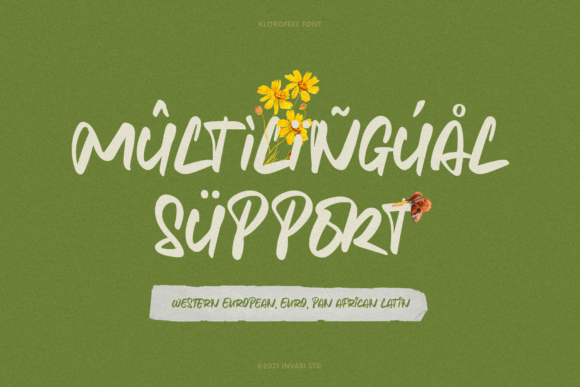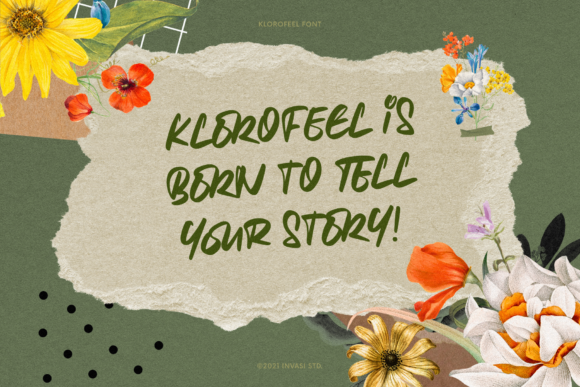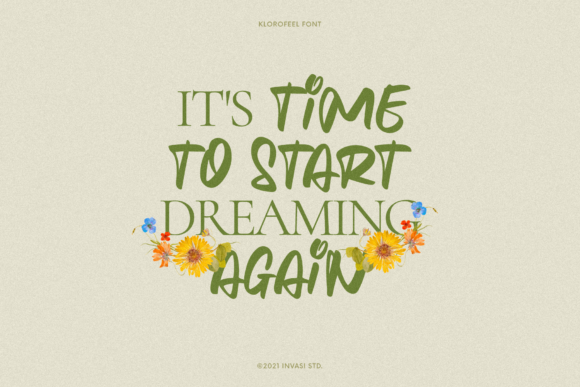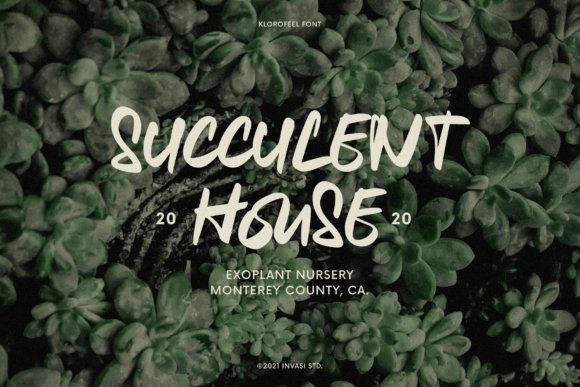
About Klorofeel Font
Featuring a classy and elegant vibe, Klorofeel is a stunning handwritten font inspired by Plants and Poems. This font was created to help you tell your story. It comes with so many ligatures that you can use for adding more fun to your projects.
Klorofeel font is perfect for quotes, headlines, branding projects, or any project requiring an elegant feel.